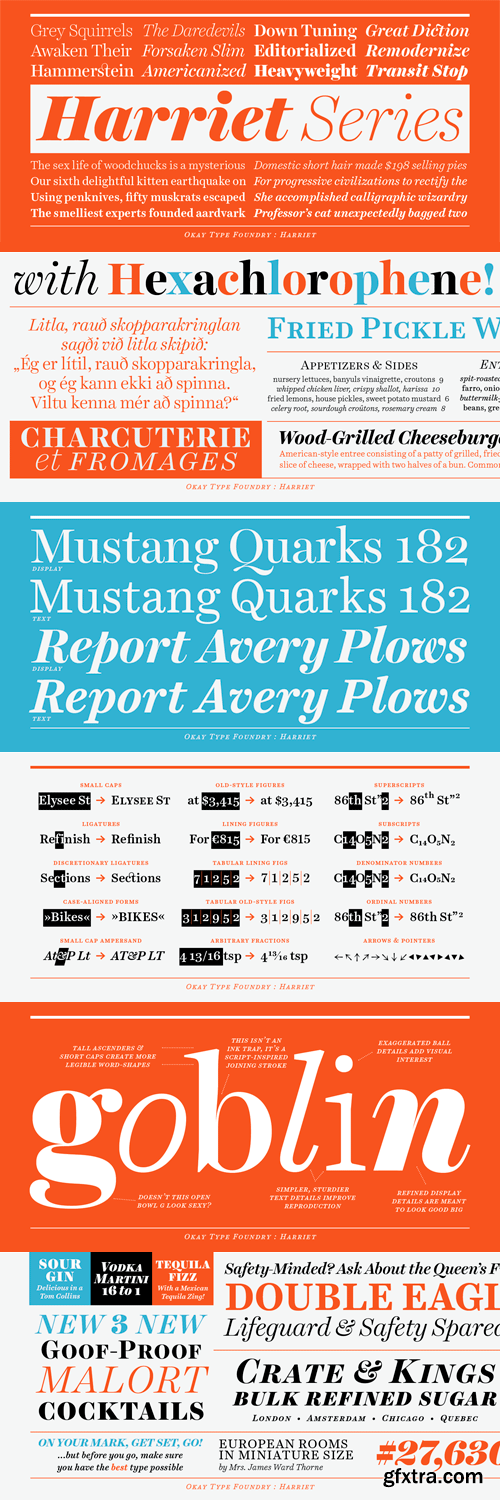
The Harriet Series is a rational serif family. It’s a contemporary reflection of the serifs popular in mid-20th-century American and English design. Harriet draws inspiration from both transitional faces, such as Baskerville, and modern faces, such as Century, at the same time it is unburdened by any particular historical model. The display styles give it just enough exuberance to sparkle while the diligent, sturdy text styles make it a true workhorse. The Harriet Series was awarded a Certificate of Type Design Awesomeness from the Type Director’s Club in 2012.